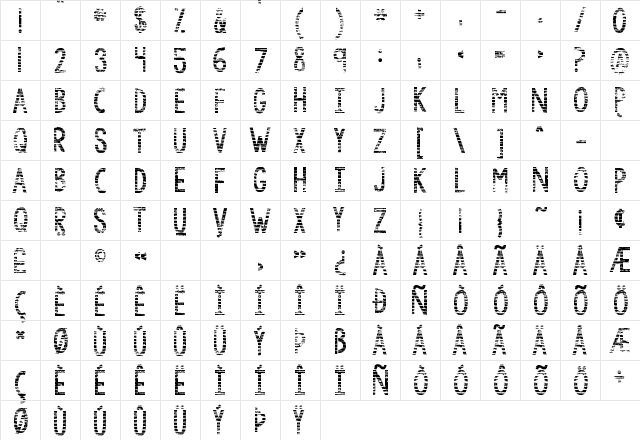
KG By the Grace of God Regular
Design Context for KG By the Grace of God Typeface
KG By the Grace of God is a composed and adaptable typeface that performs quietly and consistently across a wide range of design contexts.